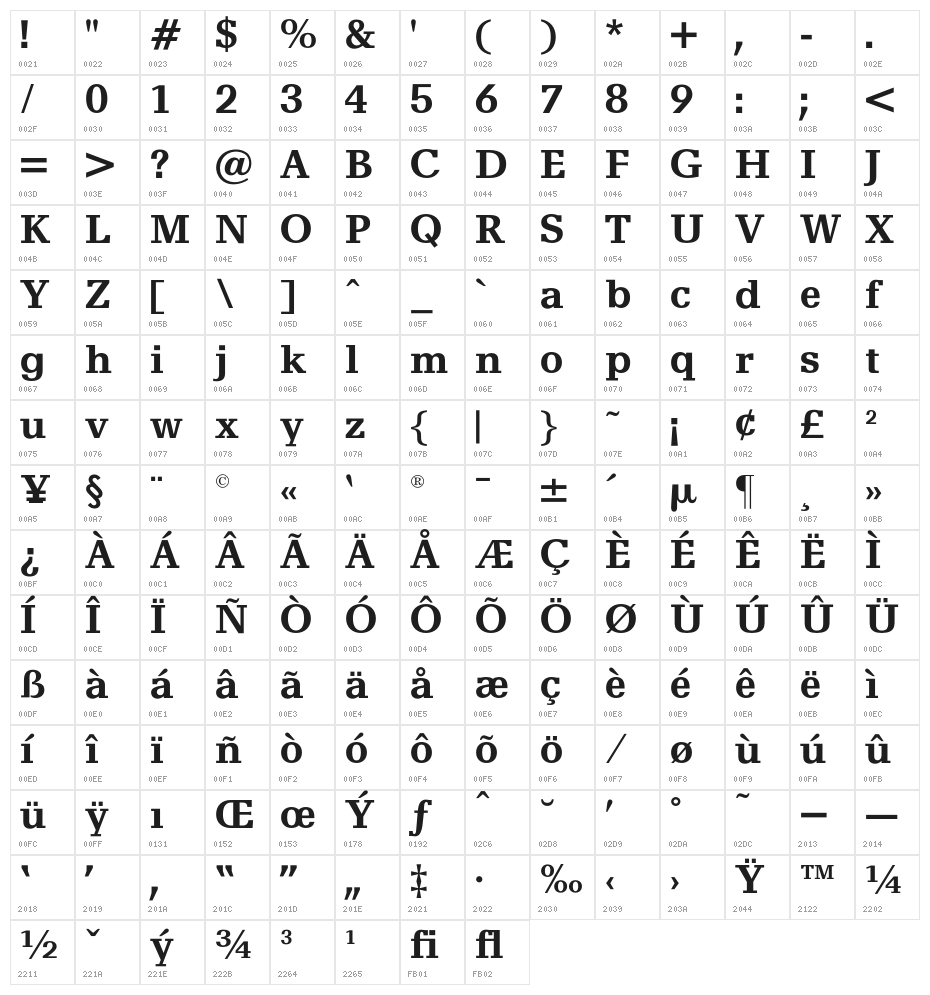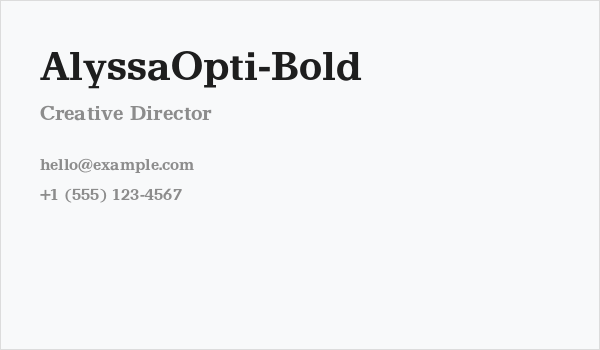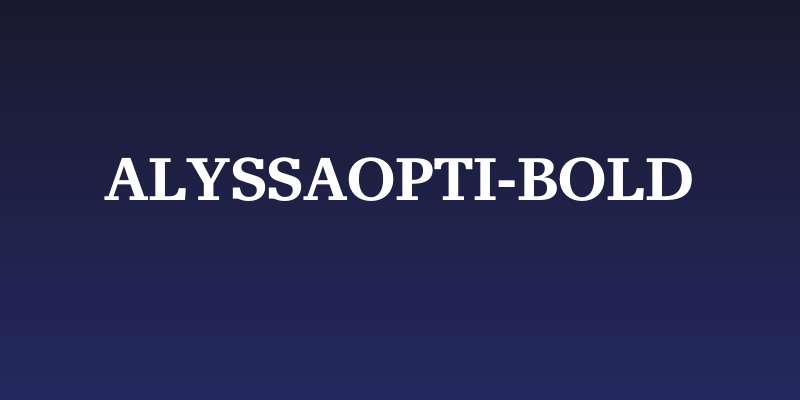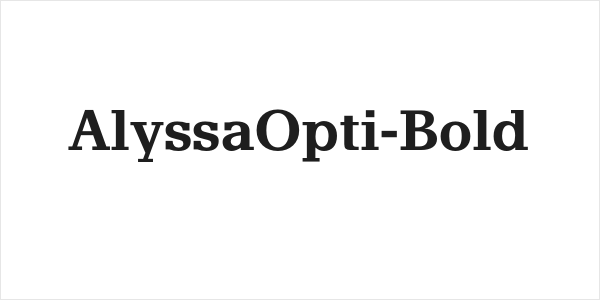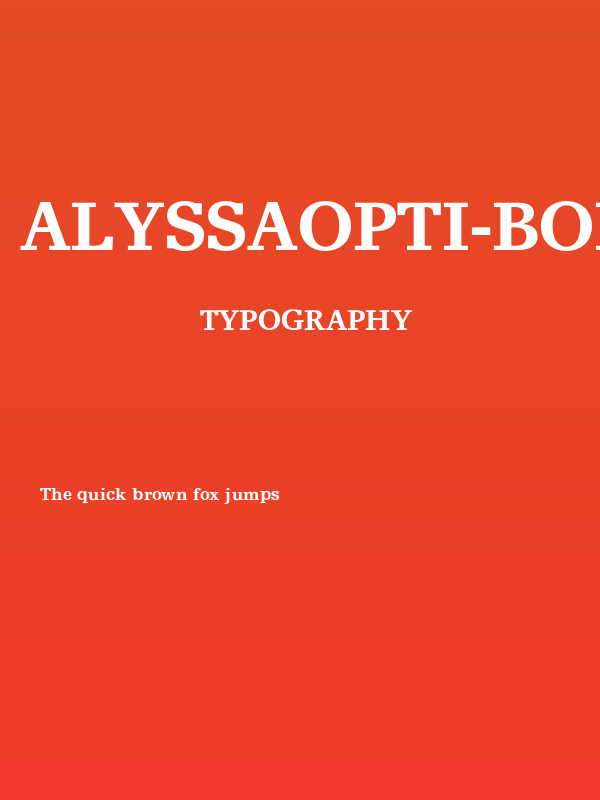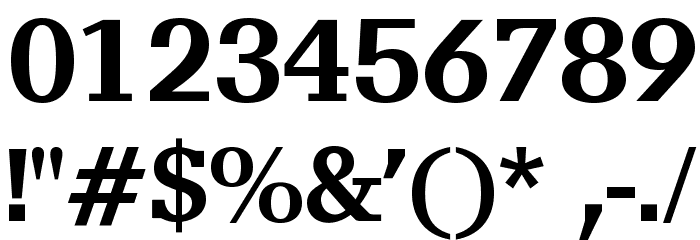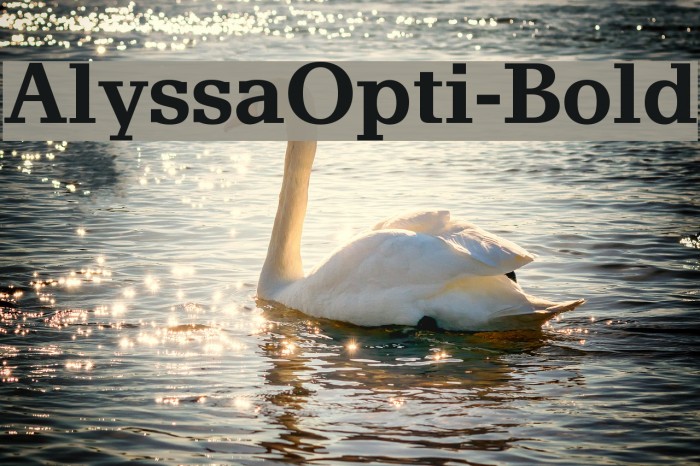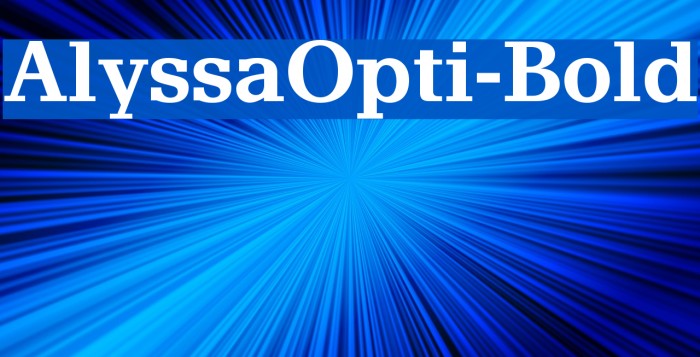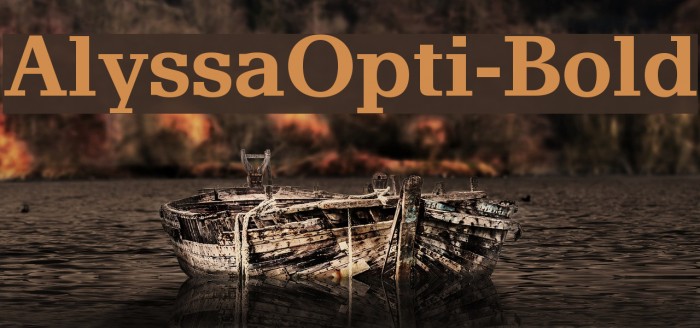
AlyssaOpti-Bold Font
AlyssaOpti-Bold Description
This font exhibits a robust and authoritative presence with its bold and strong serif design. The characters are well-defined, featuring thick strokes that convey a sense of confidence and stability. The uppercase letters are particularly striking, with a classic serif style that enhances readability and adds a touch of elegance. The lowercase letters maintain the same boldness, ensuring consistency across text. Numerals are clear and distinct, making them suitable for various applications. Special characters are included, providing versatility for different contexts. Overall, this font is ideal for making a statement, whether in print or digital formats.
| Use Case | Headlines, Logos, Editorial design |
| Proposed Projects | Ideal for headlines, branding, editorial design, and any project requiring a strong, classic serif presence. |